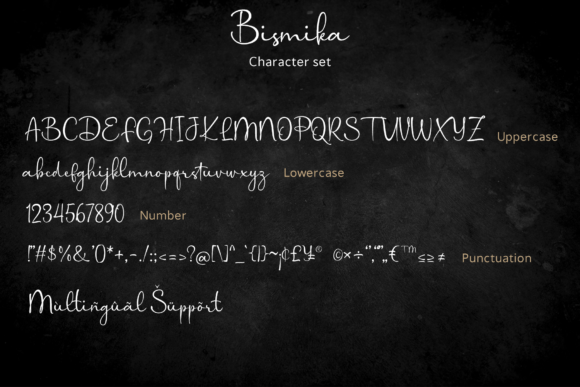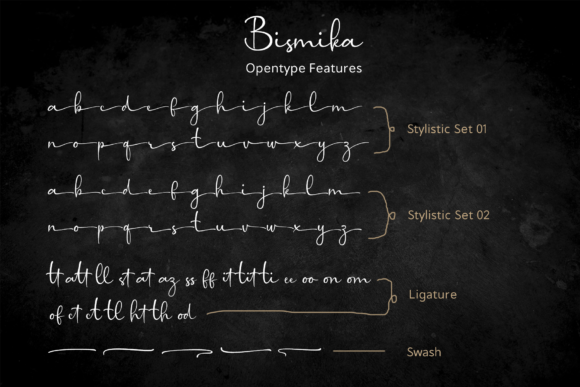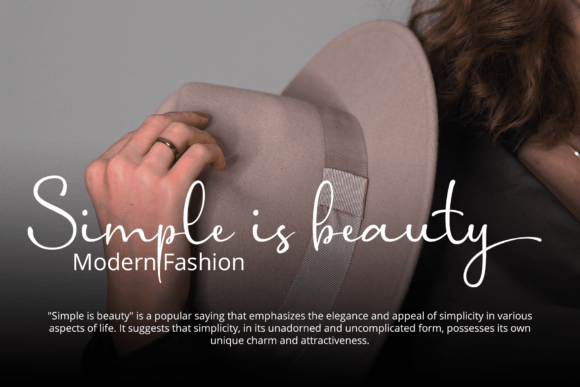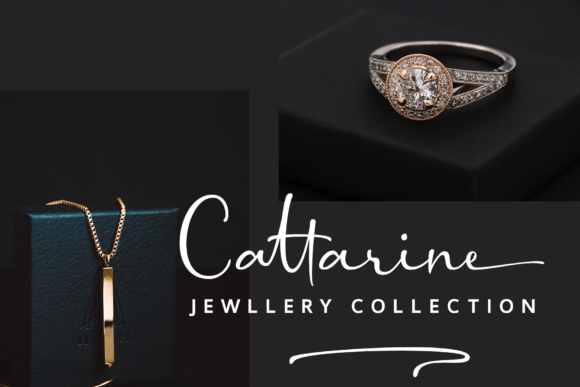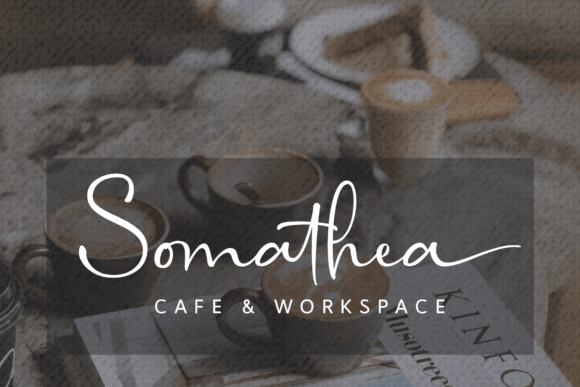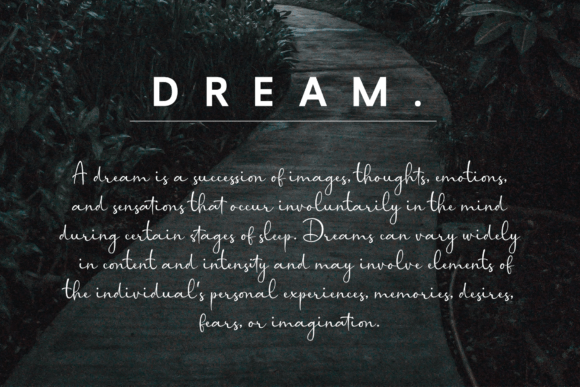
The Art of Elegant Typography: Discovering the Bismika Font
As designers, we’ve all been there – staring at a blank canvas, trying to bring a concept to life with the perfect combination of words and visuals. It’s in these moments that the right font can make all the difference, elevating our designs from ordinary to extraordinary. For me, that perfect font is Bismika, a true masterpiece of calligraphy that adds a touch of sophistication to any project.
Bismika Font is more than just a font – it’s a work of art that combines flowing curves, delicate strokes, and stylish flourishes to create a truly unique visual experience. Whether you’re designing wedding invitations, branding materials, or refined projects that demand a timeless charm, Bismika Font is the perfect choice to add that extra special something.
- Font Family: Bismika Font is a beautiful, elegant font designed to convey sophistication and luxury.
- Character Set: Supports a wide range of languages, including Latin, Arabic, and other languages using the Latin and Arabic scripts.
- Unique Characteristics: Bismika Font features intricate calligraphy and ornate details, making it perfect for high-end branding, invitations, and luxury packaging.
Bismika Font Review
I recently had the chance to work with the Bismika font, and I must say, it’s a unique and captivating font that caught my attention. Here’s what I liked about it:
- ✨ Elegant and sophisticated design: The Bismika font exudes an air of luxury and refinement, making it perfect for high-end branding and design projects.
- ✨ Beautiful calligraphy: The font’s calligraphy features are stunning, adding a touch of elegance to any text.
- ✨ Versatile: Bismika font is suitable for a wide range of design projects, from business cards to wedding invitations.
However, I also encountered some limitations:
- ⚠️ Limited character set: The font’s character set is limited, which may not be suitable for projects that require a wide range of characters.
- ⚠️ May not be readable at small sizes: The font’s design may not be as readable at small sizes, which could be a concern for certain design projects.
Overall, I was impressed with the Bismika font’s design and features. While it has some limitations, it’s a great choice for high-end design projects where elegance and sophistication are a must. With some careful consideration and planning, the Bismika font can be a valuable addition to any designer’s toolkit.
The Bismika Font is a beautiful, elegant script font that is perfect for creating invitations, wedding stationery, and other special occasion designs. It is also great for adding a touch of sophistication to business cards, resumes, and other professional documents.